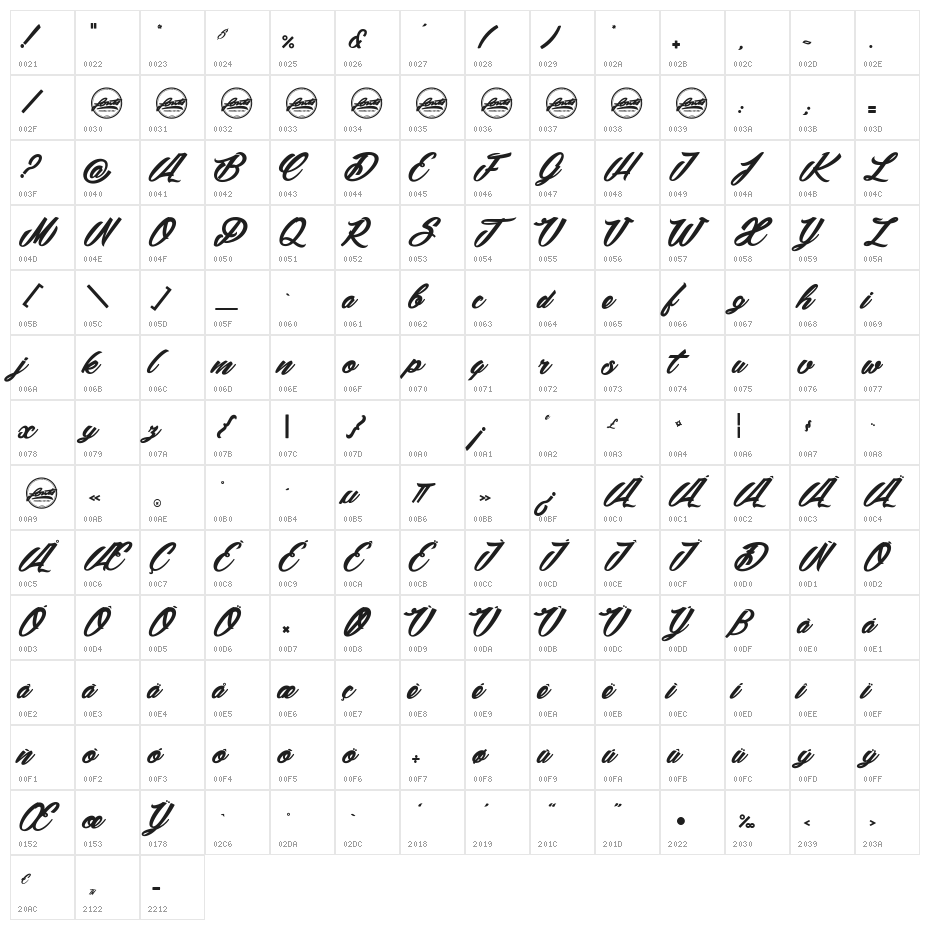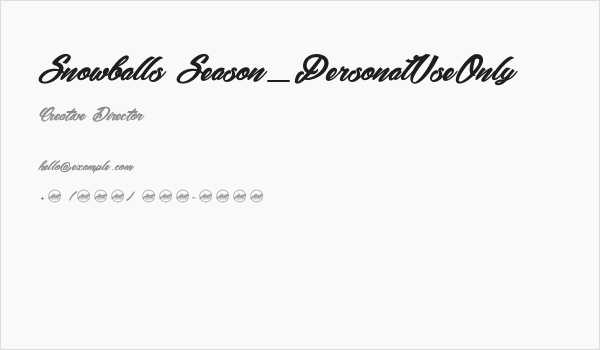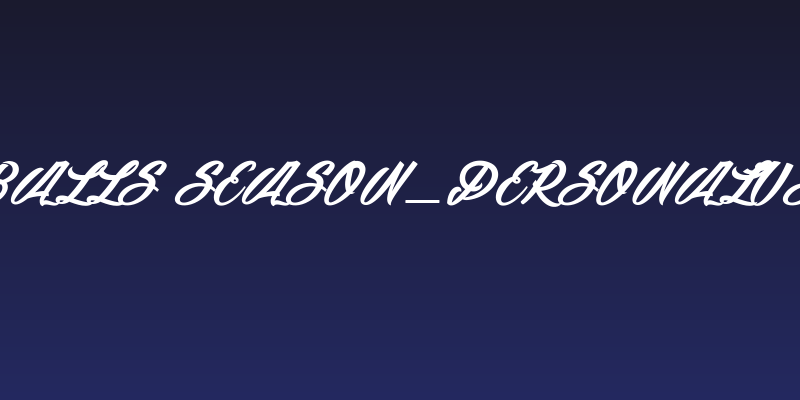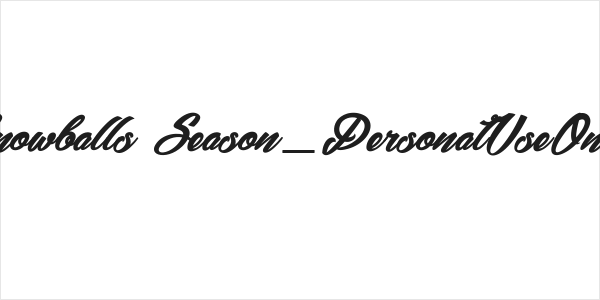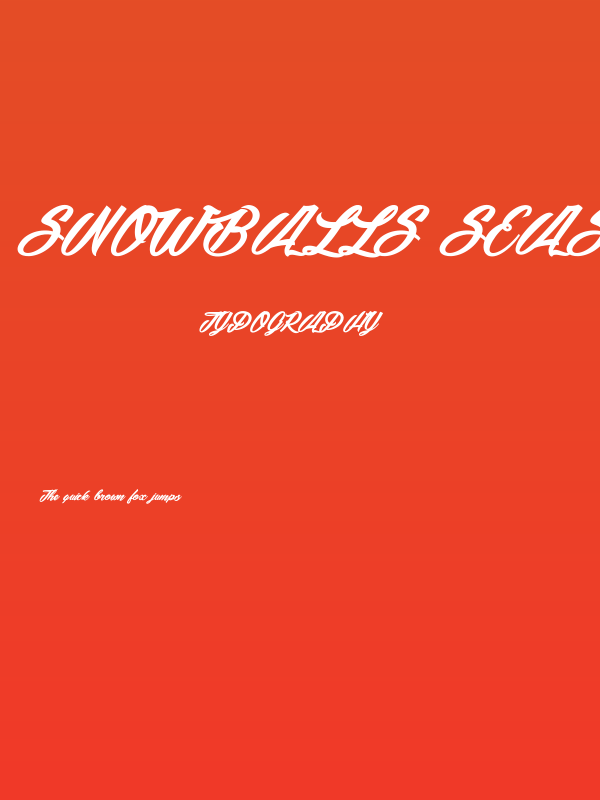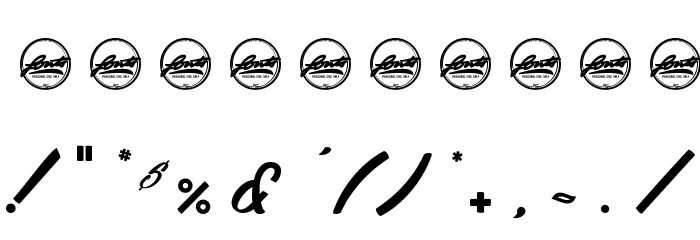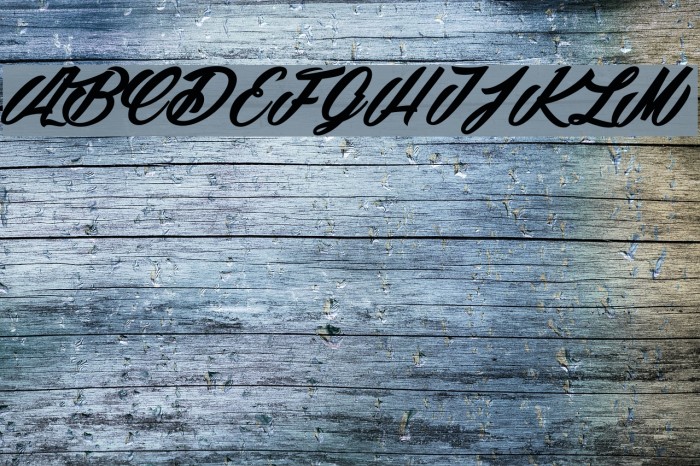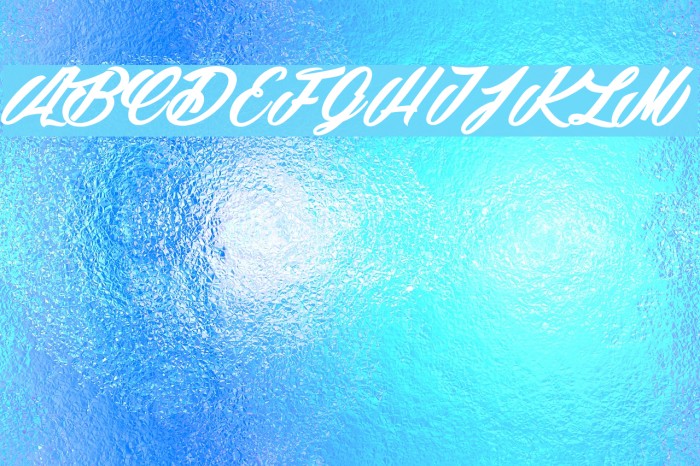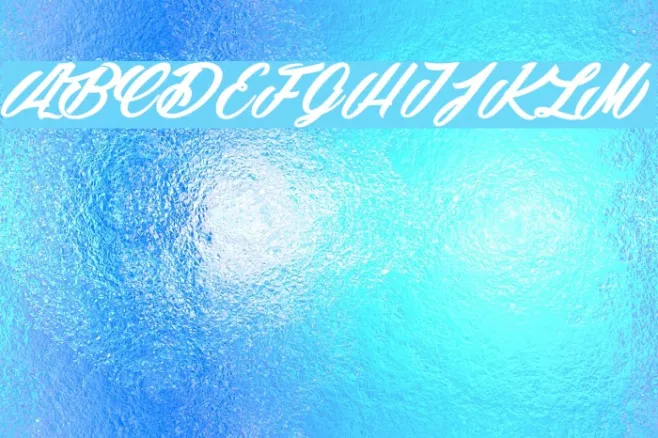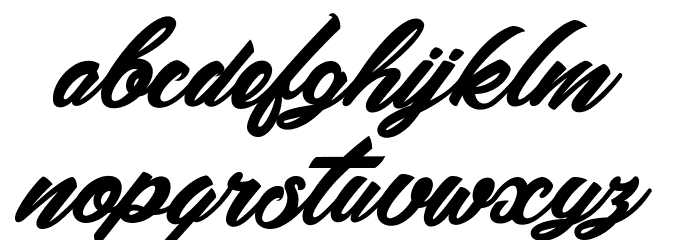
Snowballs Season_PersonalUseOnly Font
Snowballs Season_PersonalUseOnly Description
This font features a bold, cursive style with a strong emphasis on fluidity and elegance. The uppercase letters are characterized by sweeping curves and dramatic flourishes, while the lowercase letters maintain a consistent, flowing script. The numbers and special characters are designed to complement the overall aesthetic, with a playful yet sophisticated appearance. The font's thick strokes and smooth transitions between characters create a sense of movement and dynamism, making it ideal for projects that require a touch of elegance and flair.